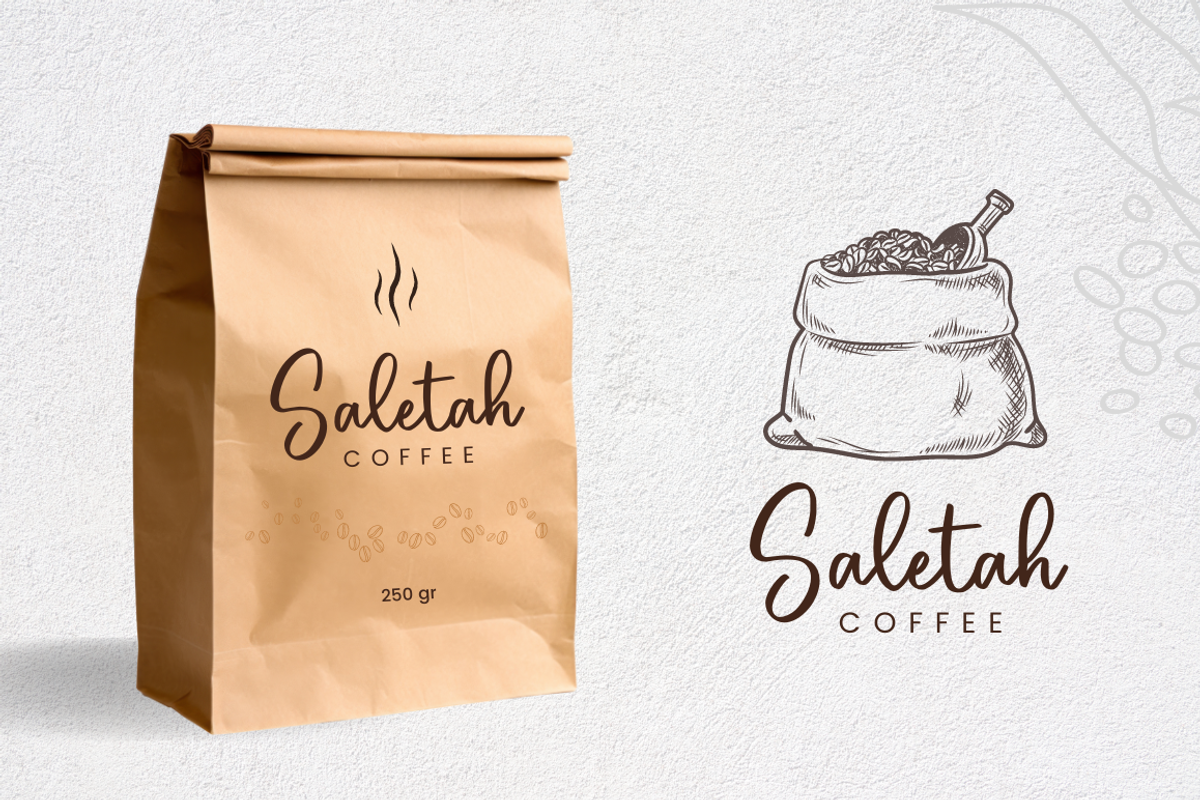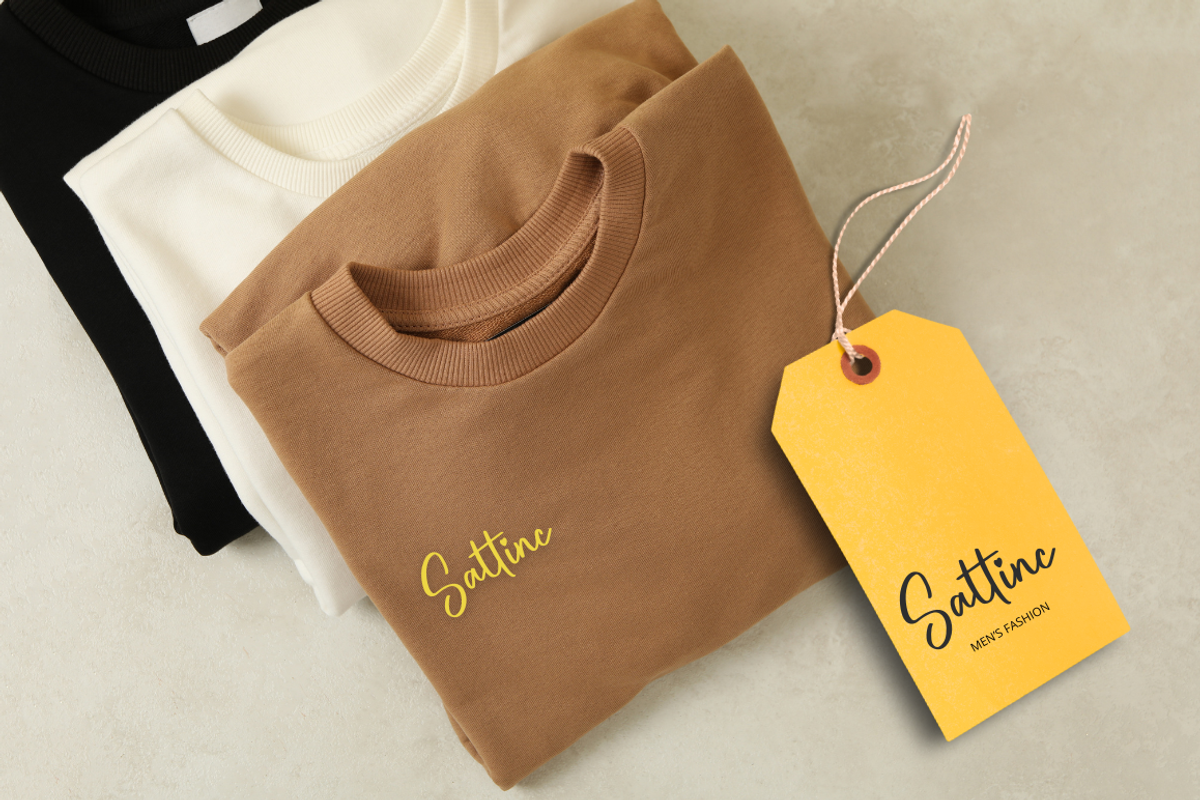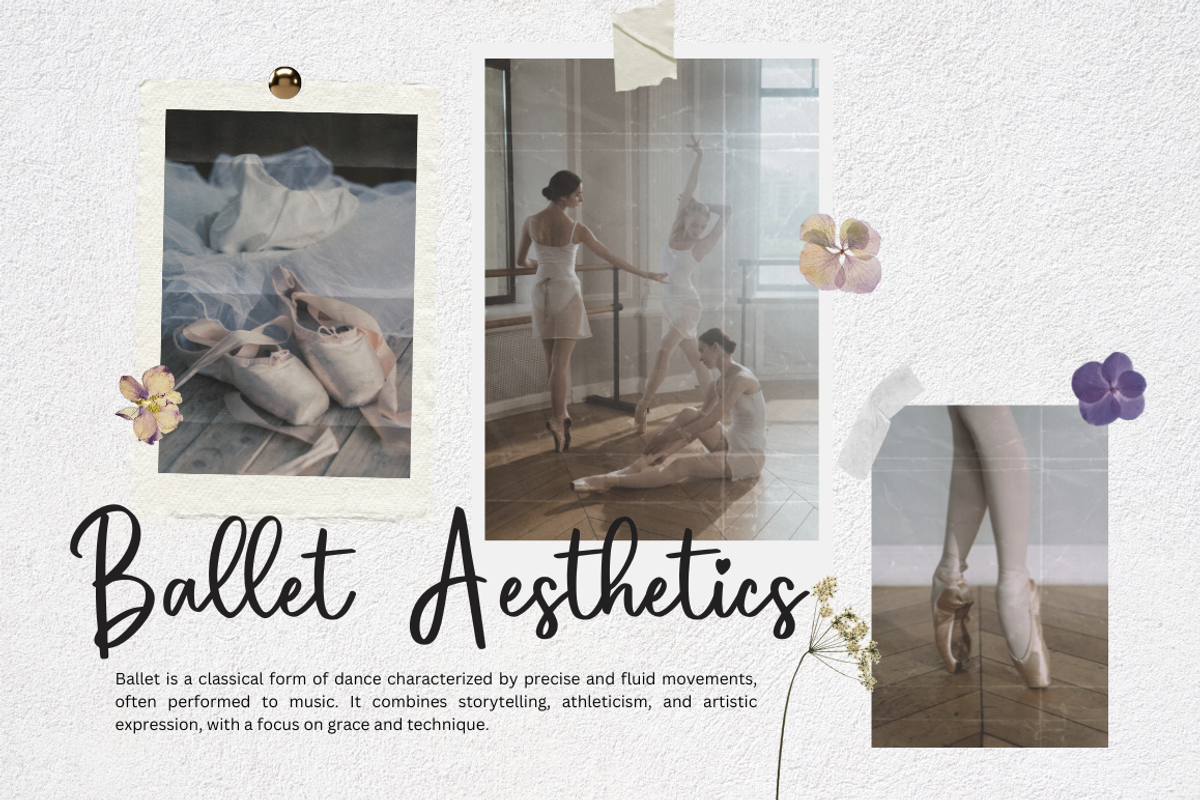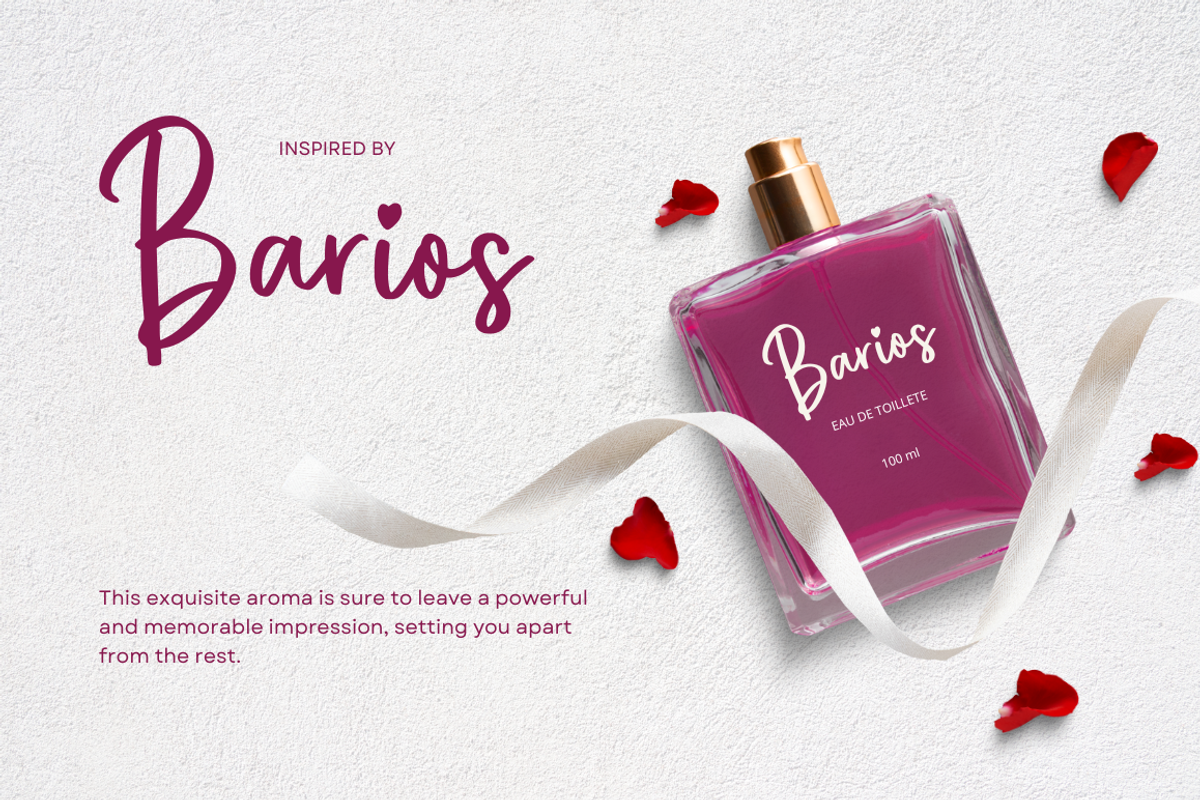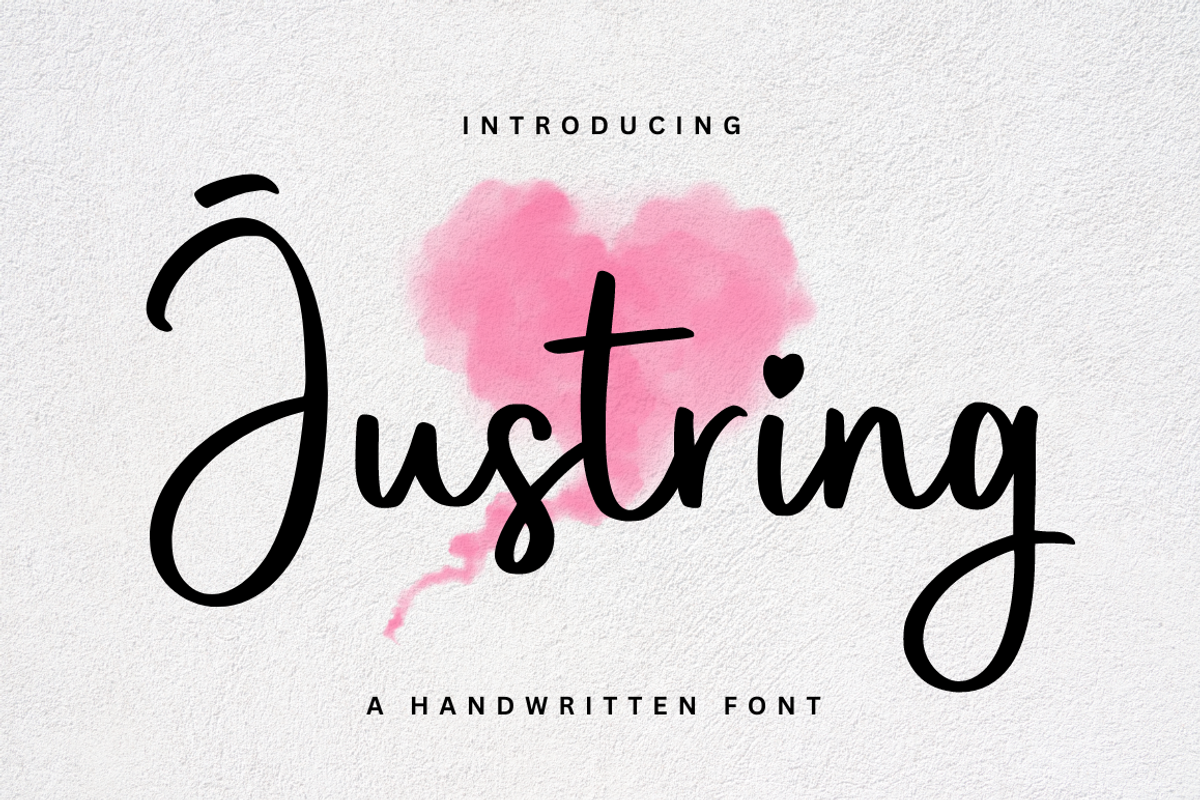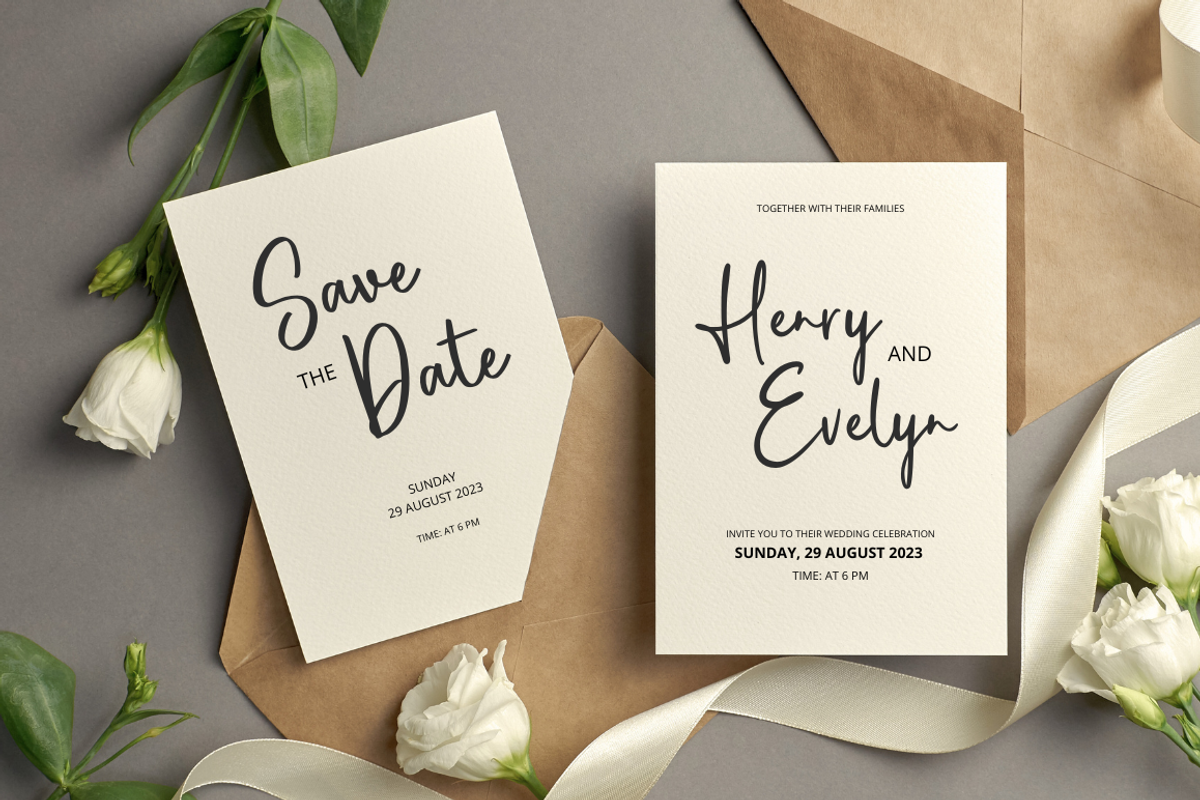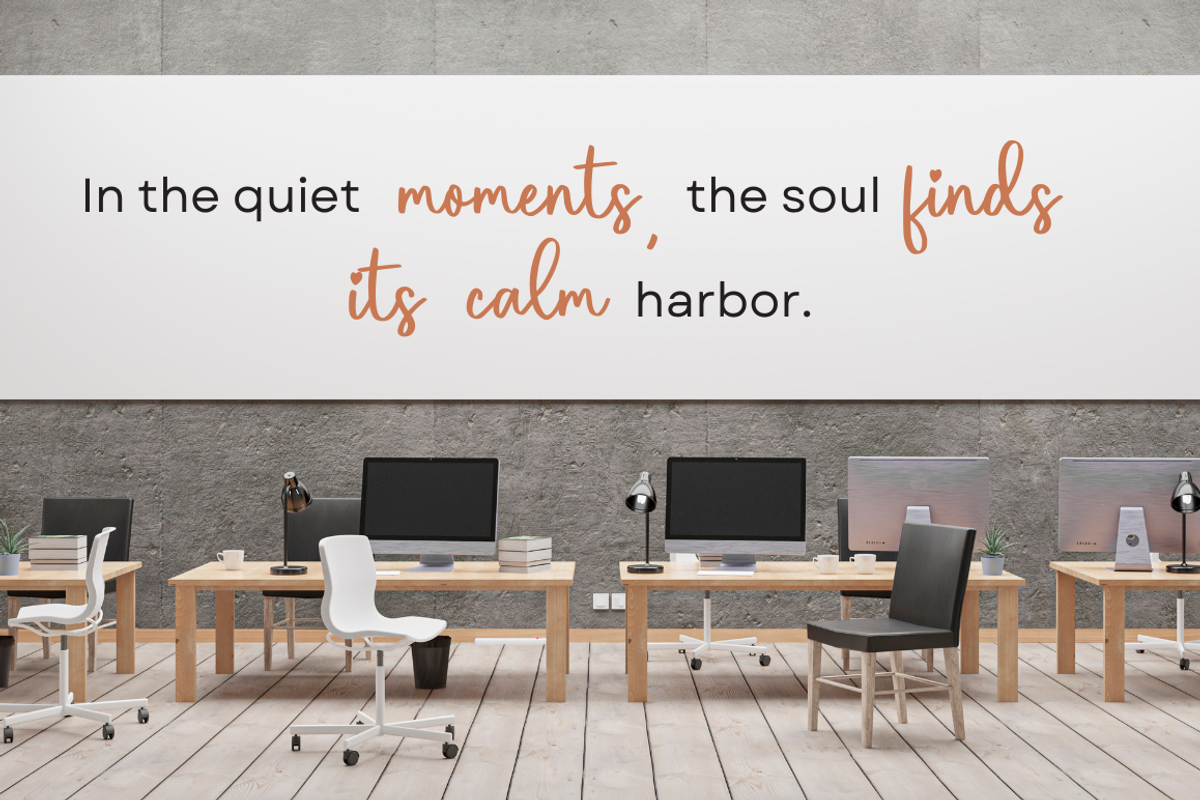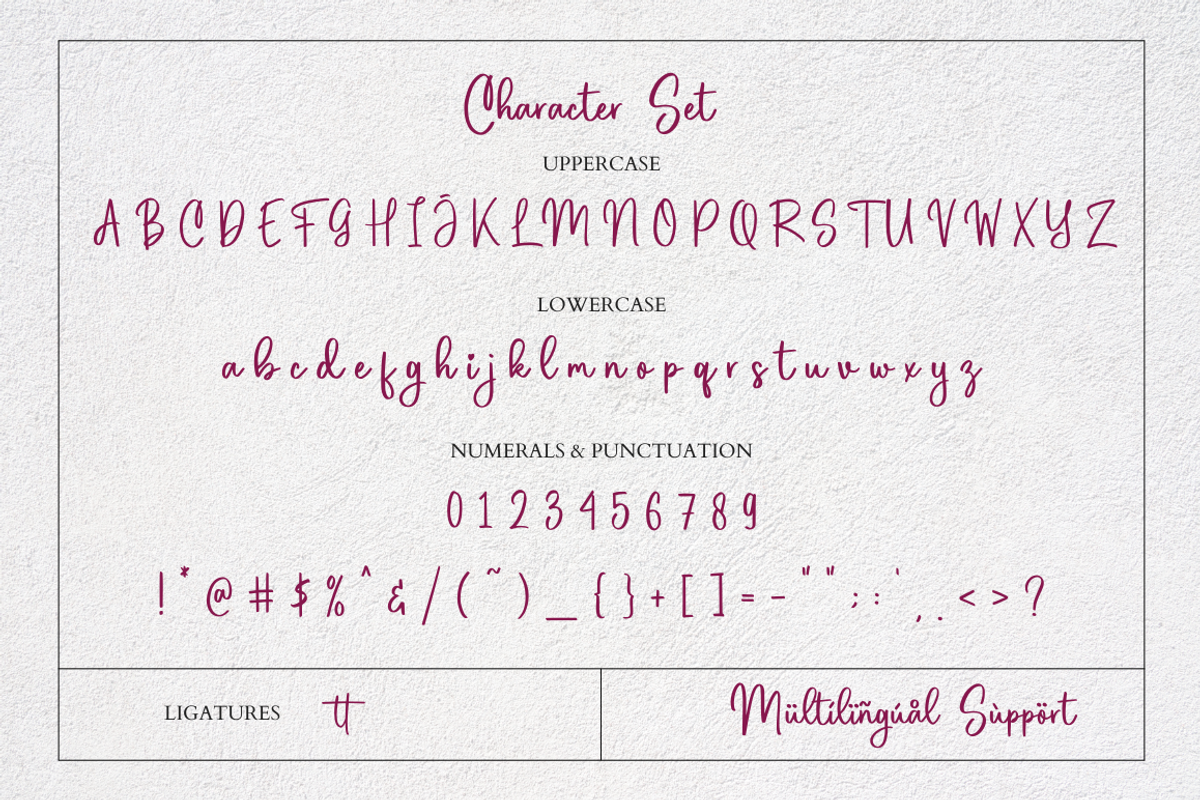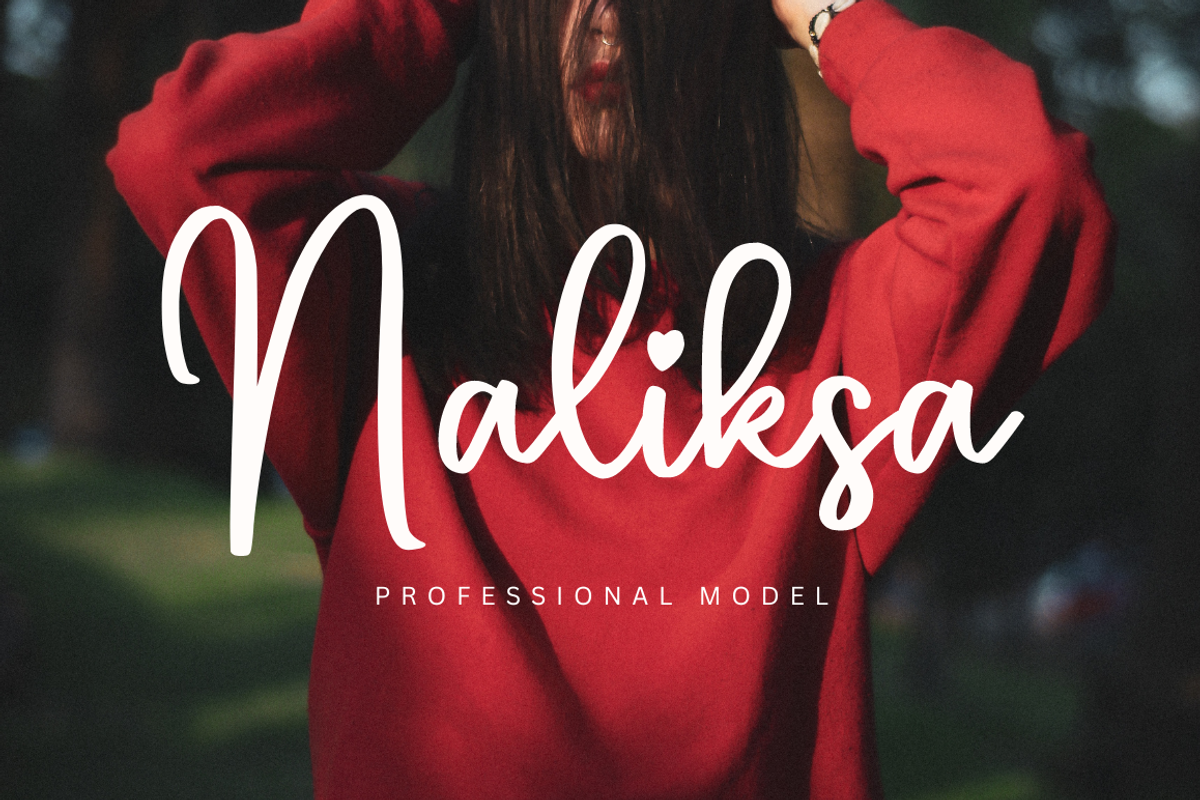
Justring - Script Font
Introducing “Justring,” a lovely handwritten script font that radiates warmth and charm. With its delicate strokes and graceful curves, this font captures the beauty of handwritten text. Perfect for projects that seek a touch of sweetness and personality, such as greeting cards, invitations, or heartfelt messages, “Justring” infuses your designs with a delightful and intimate feel, creating a connection that feels truly genuine and heartfelt.